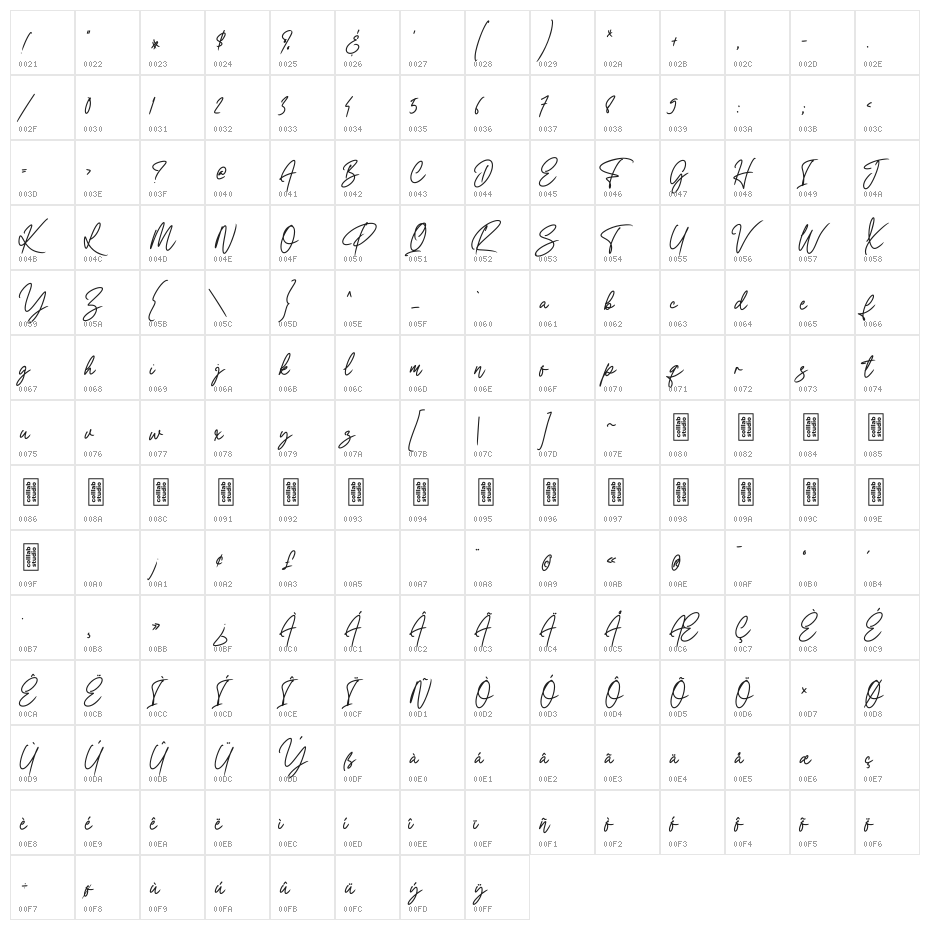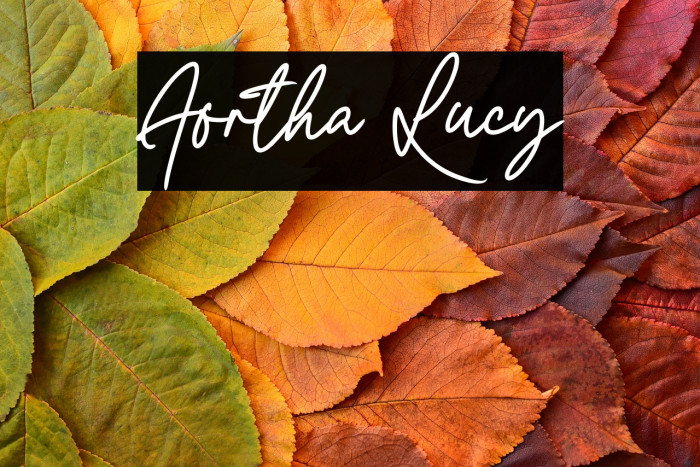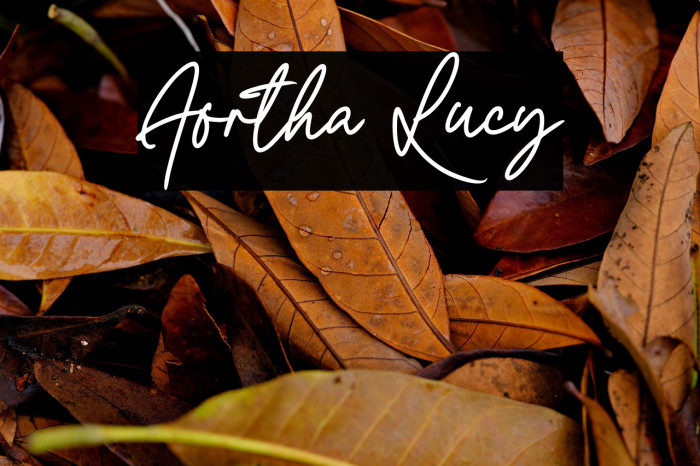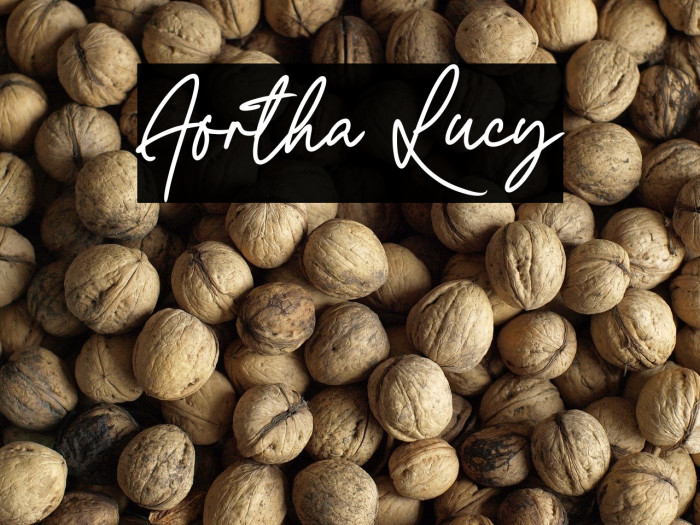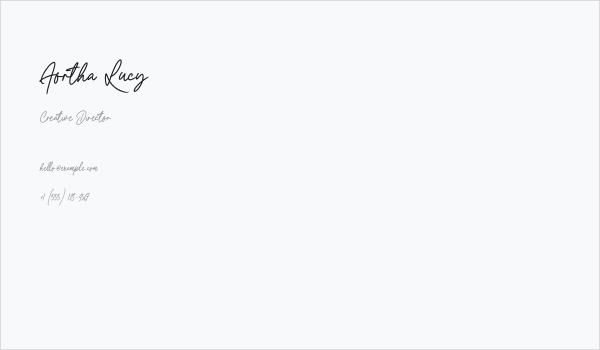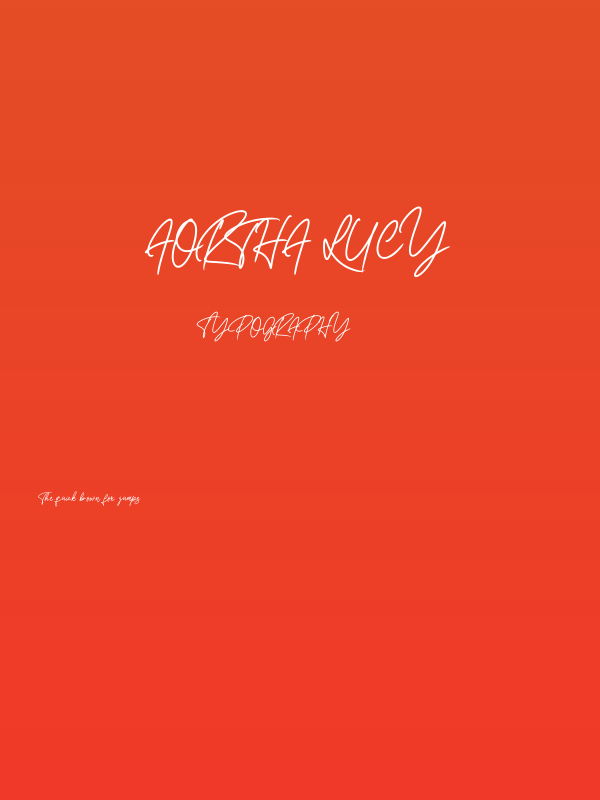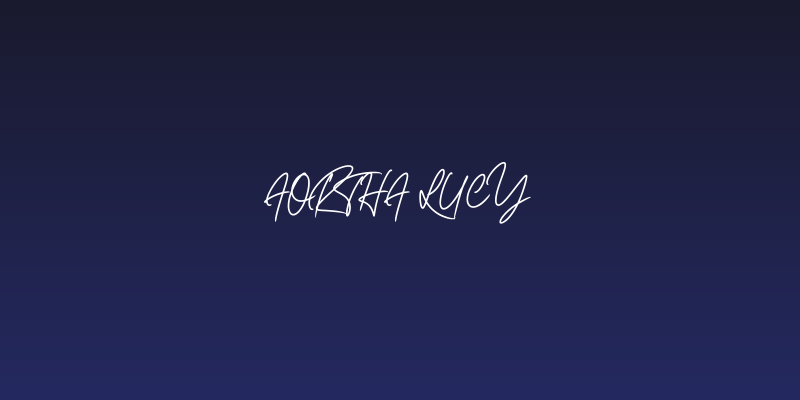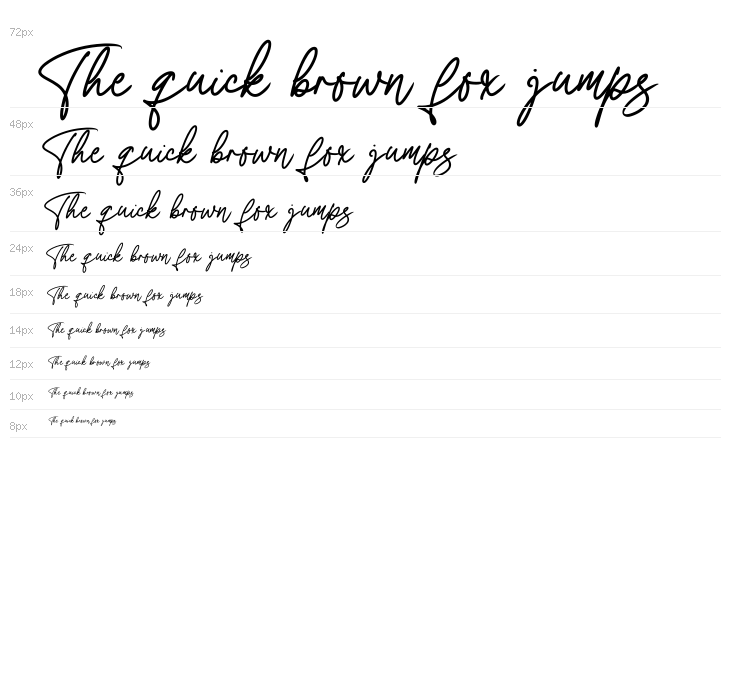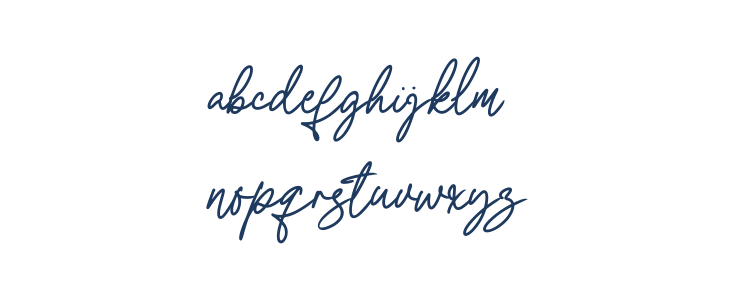
Aortha Lucy Font
Aortha Lucy Description
This font exudes a dynamic and flowing script style, characterized by its elegant and fluid strokes. The letters are interconnected, creating a seamless and cursive appearance that mimics natural handwriting. The uppercase letters are bold and expressive, while the lowercase letters maintain a consistent flow with slightly more subtlety. The numerals and special characters follow the same cursive style, ensuring uniformity across all glyphs. This font's design is both artistic and legible, making it suitable for creative and formal applications.
| Proposed Projects | Ideal for wedding invitations, greeting cards, branding projects, and any design that requires a personal, handwritten touch. |